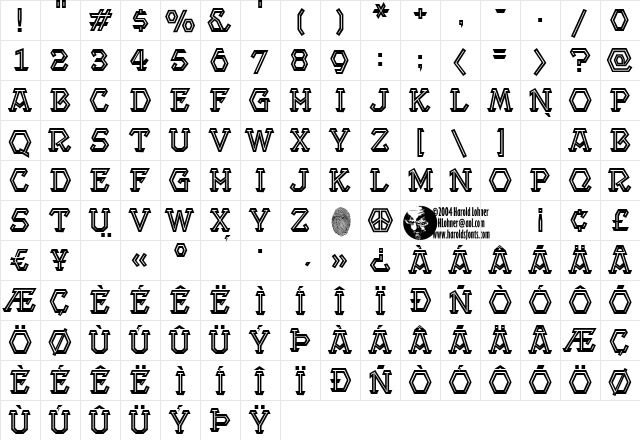
ProjectBold Inline Regular
Design Context for ProjectBold Inline Typeface
ProjectBold Inline is built around its visual character rather than neutral utility — its distinctive forms are designed to make an impression at display sizes. The heavy weight commands attention and anchors typographic hierarchies.
Font Pairing: Pair with a clean neutral sans-serif for body copy to let ProjectBold Inline's character lead without overwhelming the composition.
Pro Tip: Use ProjectBold Inline exclusively at display sizes — it was designed to be seen, not read at length. Let a neutral companion handle body copy.